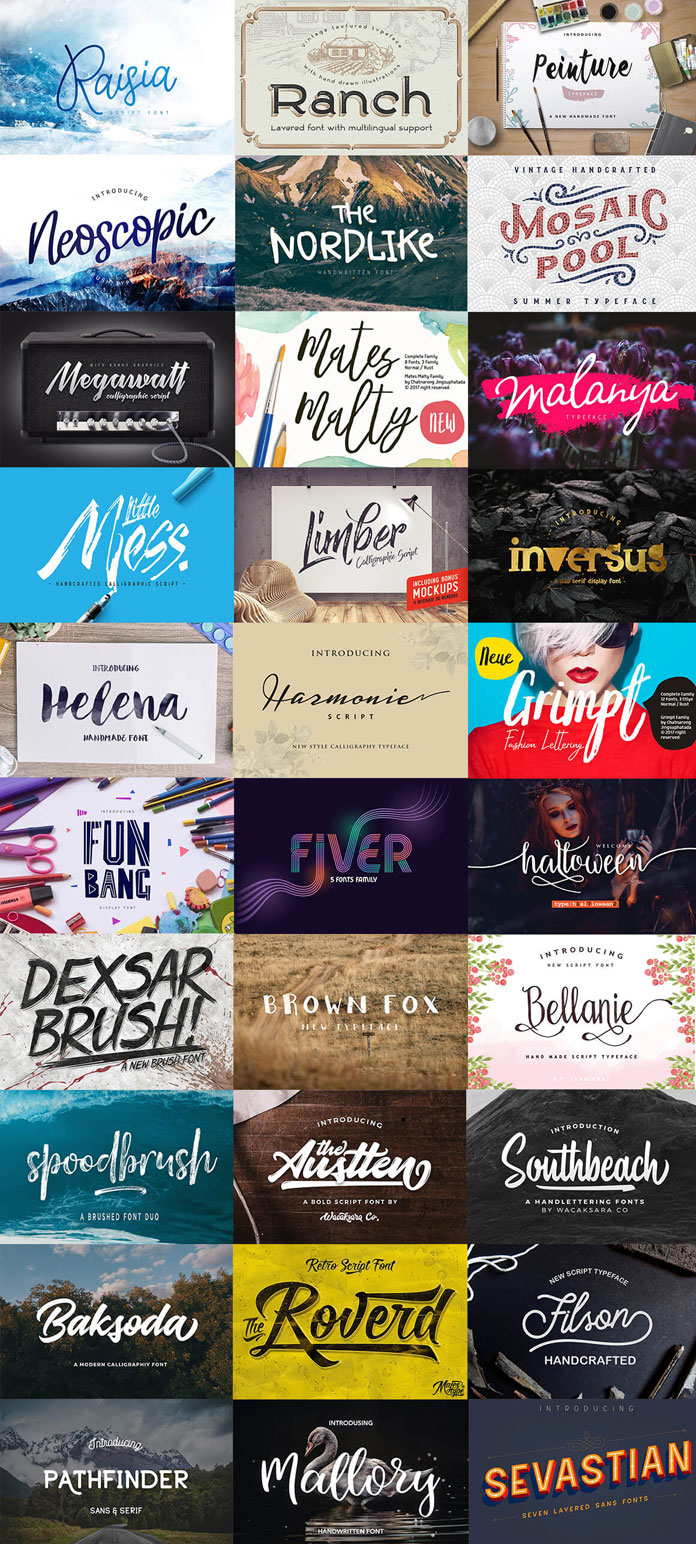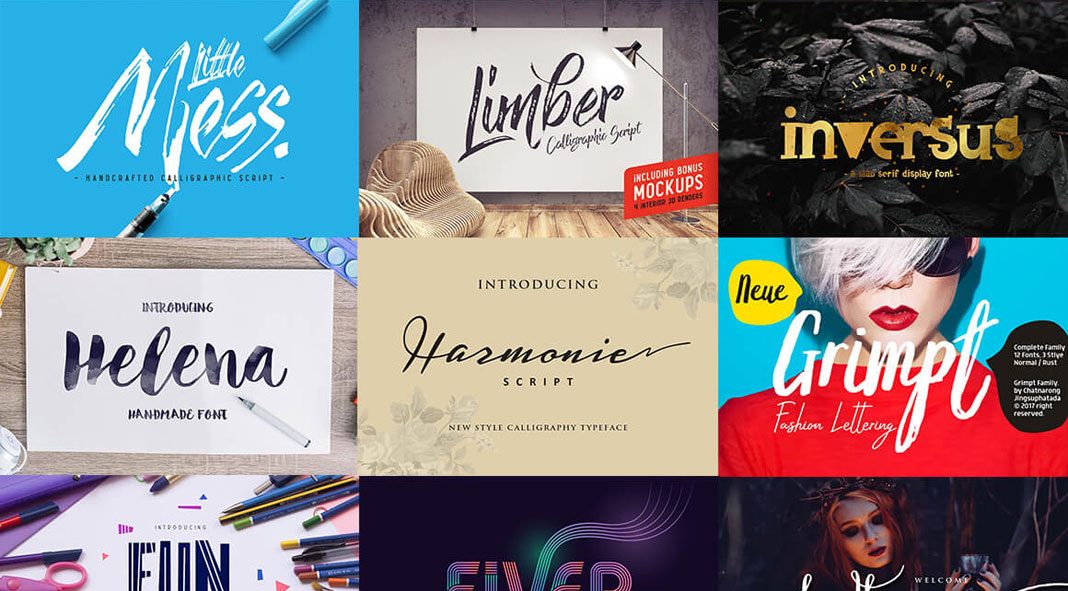
A collection of 31 versatile fonts available for a very limited time on Pixelo.
The friendly team of Pixelo has put together another exclusive font bundle. The fine collection consists of 31 versatile fonts. Instead of $2970, you can grab them all for only $29 (just for a very limited time). That’s 99% off! The selection ranges from clean, sturdy designs to some very experimental and unique typefaces. Any font is well suited for both print and web. You can use them to create stunning logos, headlines, festive titles, and much more. To get some further information, feel free to follow the link below.